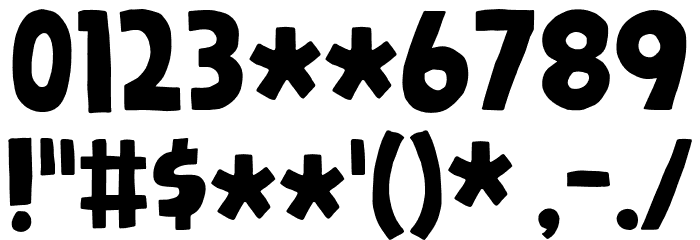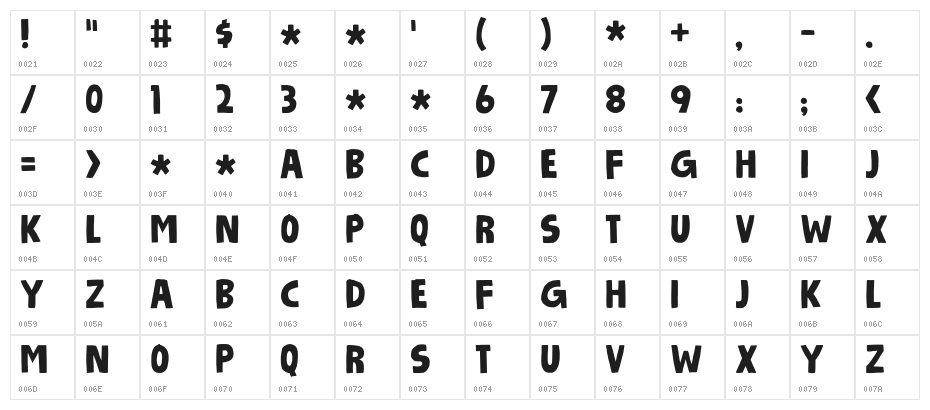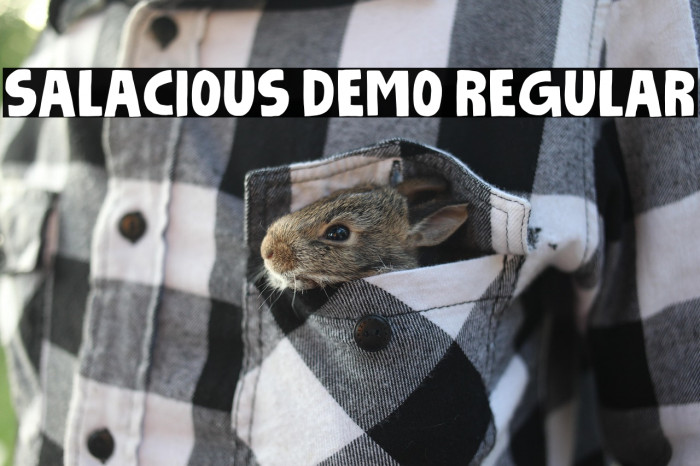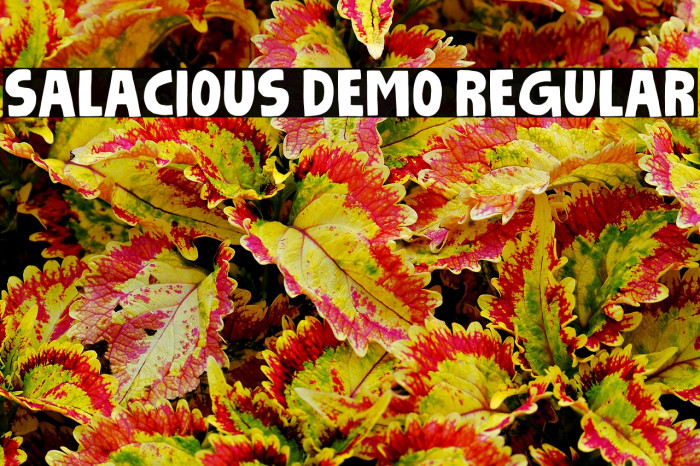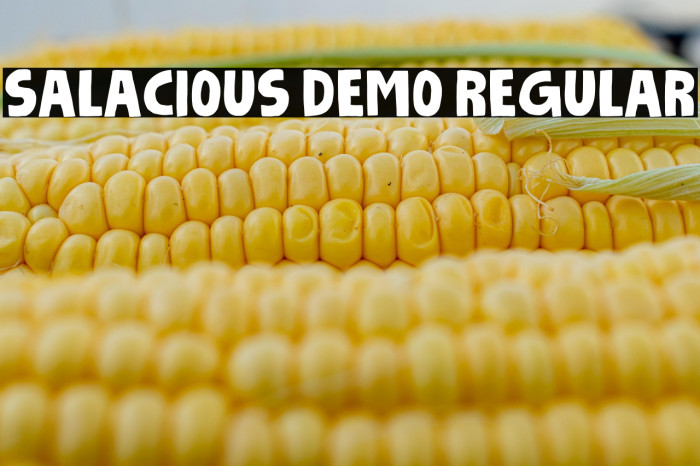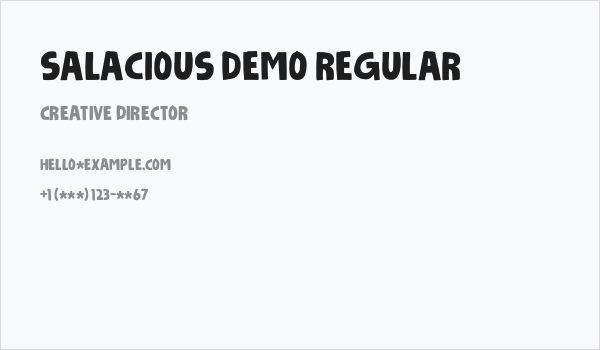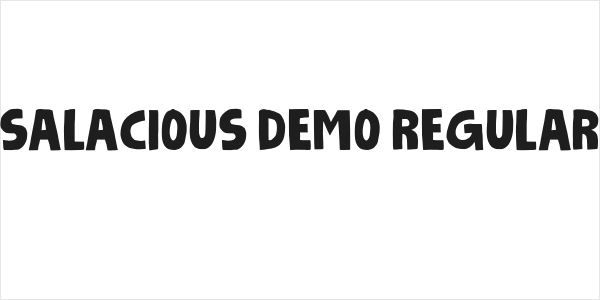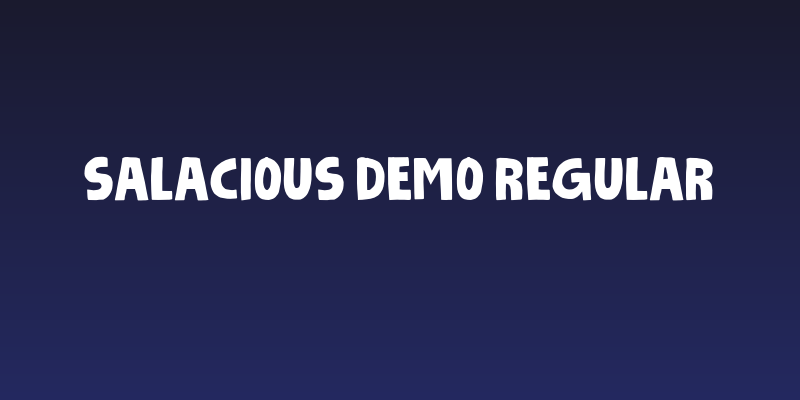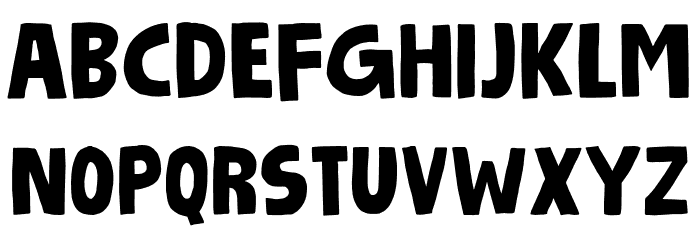
Salacious DEMO Regular Font
Salacious DEMO Regular Description
This font features a bold and playful design, characterized by its thick, uneven strokes and slightly irregular shapes. The letters have a hand-drawn quality, giving them a whimsical and informal appearance. The uppercase and lowercase letters maintain a consistent style, with rounded edges and a slightly condensed form. The numbers and special characters follow the same playful aesthetic, making the font suitable for creative and informal projects. Its unique style stands out, making it ideal for attention-grabbing headlines and designs that require a touch of personality.
| Proposed Projects | Ideal for children's books, playful branding, posters, and creative invitations. |